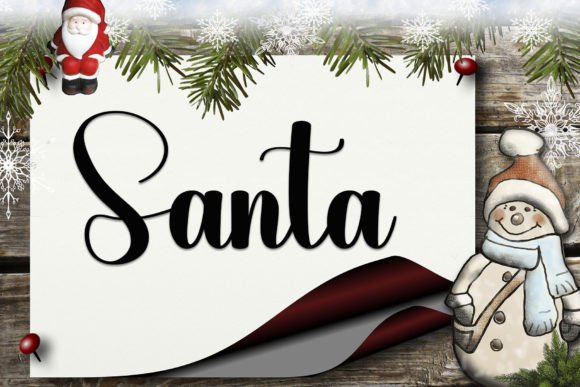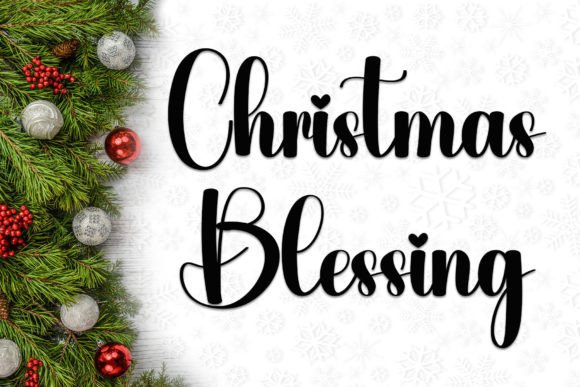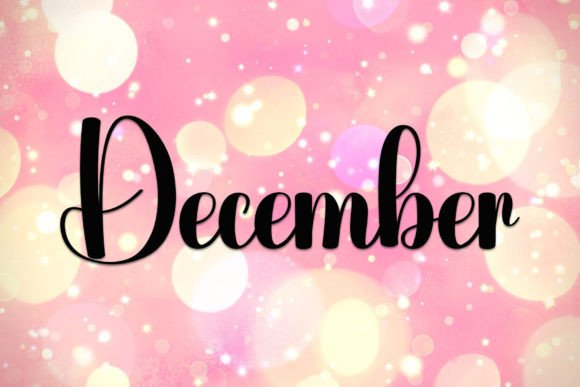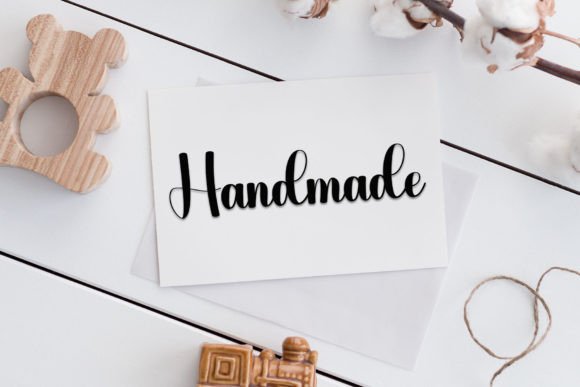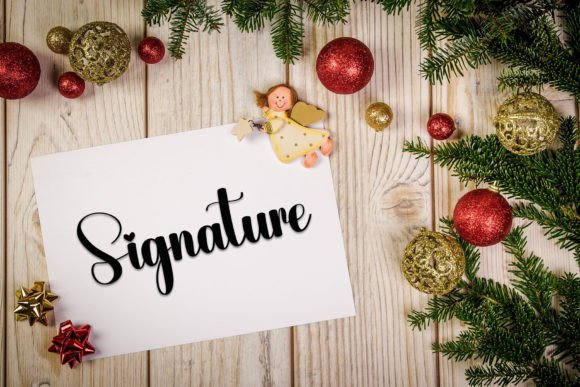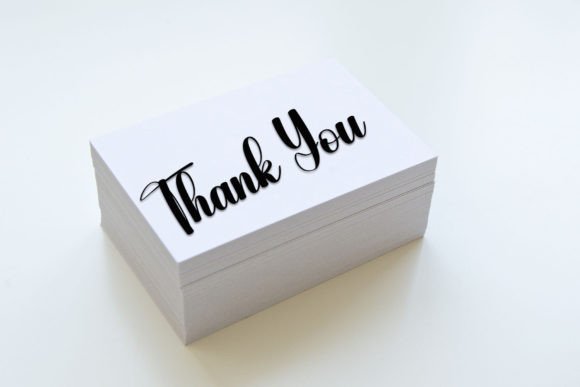
Introducing Christmas Barbie Font: The Ultimate Elegant Handwritten Font for Your Holiday Projects
Are you looking for a font that embodies the spirit of Christmas and adds a touch of elegance to your designs? Look no further than the Christmas Barbie Font! This beautiful handwritten font is perfect for designers and crafters who want to create spectacular holiday-themed projects that stand out from the crowd.
What is Christmas Barbie Font?
Christmas Barbie Font is a neat and beautiful handwritten font that is described by an elegant touch. Its incredibly distinct and timeless style makes it perfect for a wide range of projects, from holiday cards and invitations to festive posters and social media graphics.
Key Features of Christmas Barbie Font
- Elegant and Refined: Christmas Barbie Font boasts an elegant and refined style that is perfect for creating sophisticated holiday designs.
- Handwritten with Love: This font is carefully crafted to mimic the look and feel of handwritten text, adding a personal touch to your designs.
- Distinct and Timeless: The font’s unique style ensures that your designs will stand out from the crowd and remain timeless for years to come.
- Perfect for Holiday Projects: Whether you’re creating Christmas cards, holiday posters, or festive social media graphics, Christmas Barbie Font is the perfect choice.
Why Choose Christmas Barbie Font?
There are many fonts to choose from, but Christmas Barbie Font stands out from the rest due to its unique combination of elegance, refinement, and playfulness. Here are just a few reasons why designers and crafters love this font:
- Easy to Read: Despite its elegant style, Christmas Barbie Font is easy to read, making it perfect for body text and headlines.
- Versatile: This font is versatile and can be used for a wide range of projects, from formal holiday invitations to festive social media graphics.
- Unique: Christmas Barbie Font is one-of-a-kind, ensuring that your designs will stand out from the crowd and grab attention.
How to Use Christmas Barbie Font in Your Designs
Using Christmas Barbie Font in your designs is easy! Here are a few tips to get you started:
- Pair it with Other Fonts: Experiment with pairing Christmas Barbie Font with other fonts to create a unique and eye-catching design.
- Use it for Headlines and Titles: This font is perfect for headlines and titles, adding a touch of elegance and sophistication to your designs.
- Add Festive Colors: Use festive colors like red, green, and gold to add a holiday touch to your designs.
Tips and Tricks for Working with Christmas Barbie Font
Here are a few tips and tricks to help you get the most out of Christmas Barbie Font:
- Experiment with Font Sizes: Experiment with different font sizes to create visual interest and hierarchy in your designs.
- Use it for Digital and Print Projects: Christmas Barbie Font is perfect for both digital and print projects, from social media graphics to holiday cards and invitations.
- Make it Your Own: Don’t be afraid to experiment and make Christmas Barbie Font your own by adding textures, patterns, and other design elements.
Christmas Barbie Font is a beautiful and elegant handwritten font that is perfect for designers and crafters who want to create spectacular holiday-themed projects. With its unique combination of refinement, playfulness, and elegance, this font is sure to become a favorite in your design arsenal. So why wait? Download Christmas Barbie Font today and start creating stunning holiday designs that will leave a lasting impression!
Whether you’re a seasoned designer or a crafter looking for a special font to add to your collection, Christmas Barbie Font is a must-have for the holiday season. So go ahead, get creative, and make this font your own!